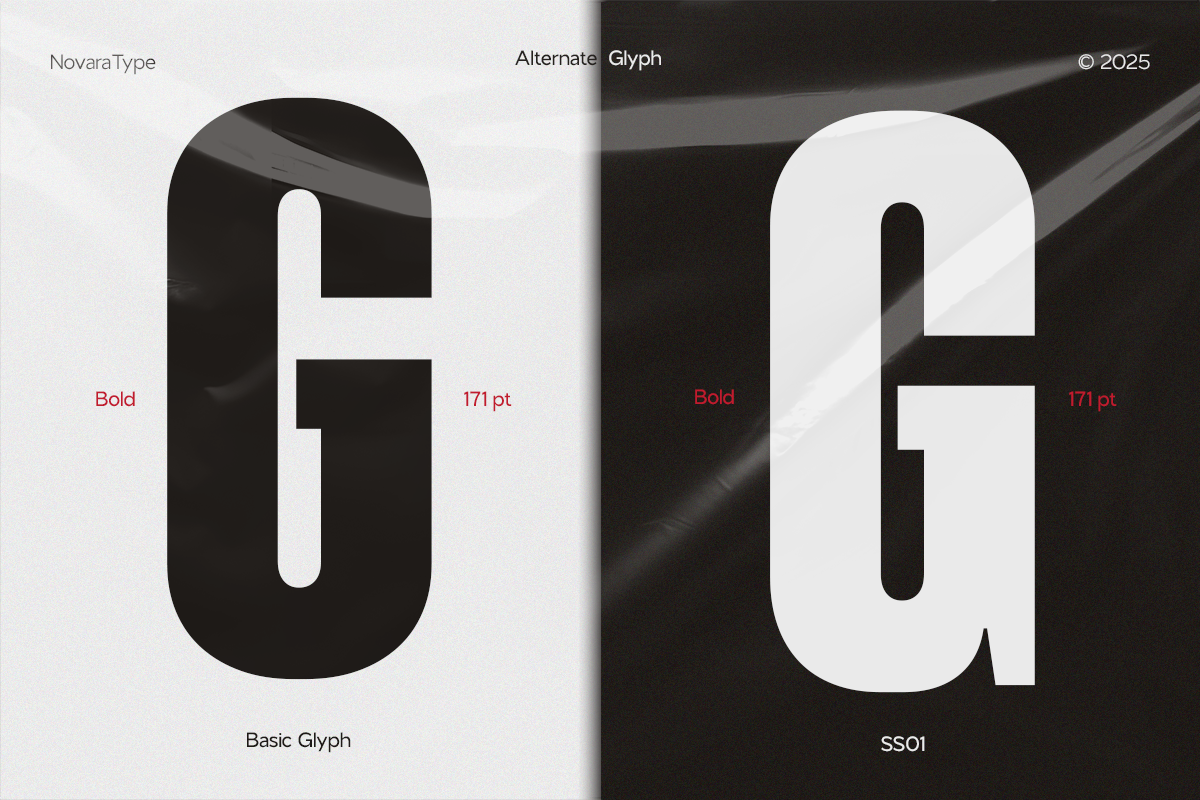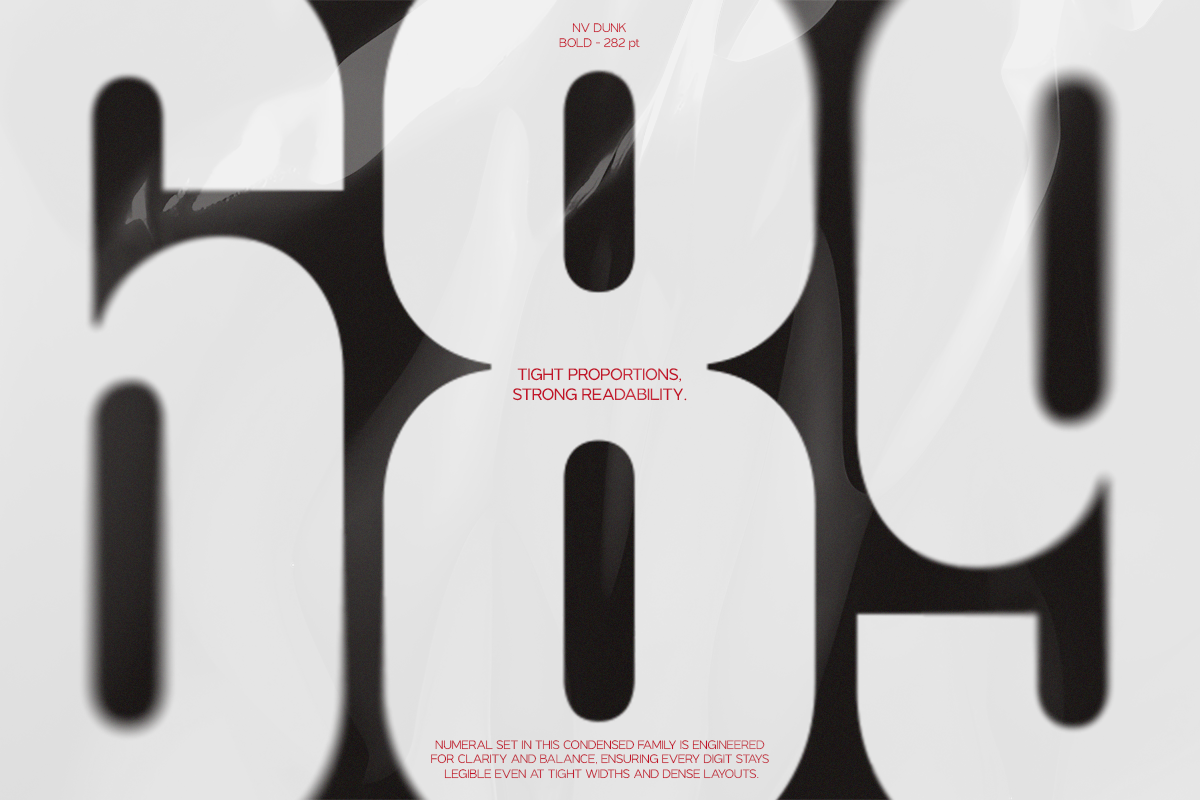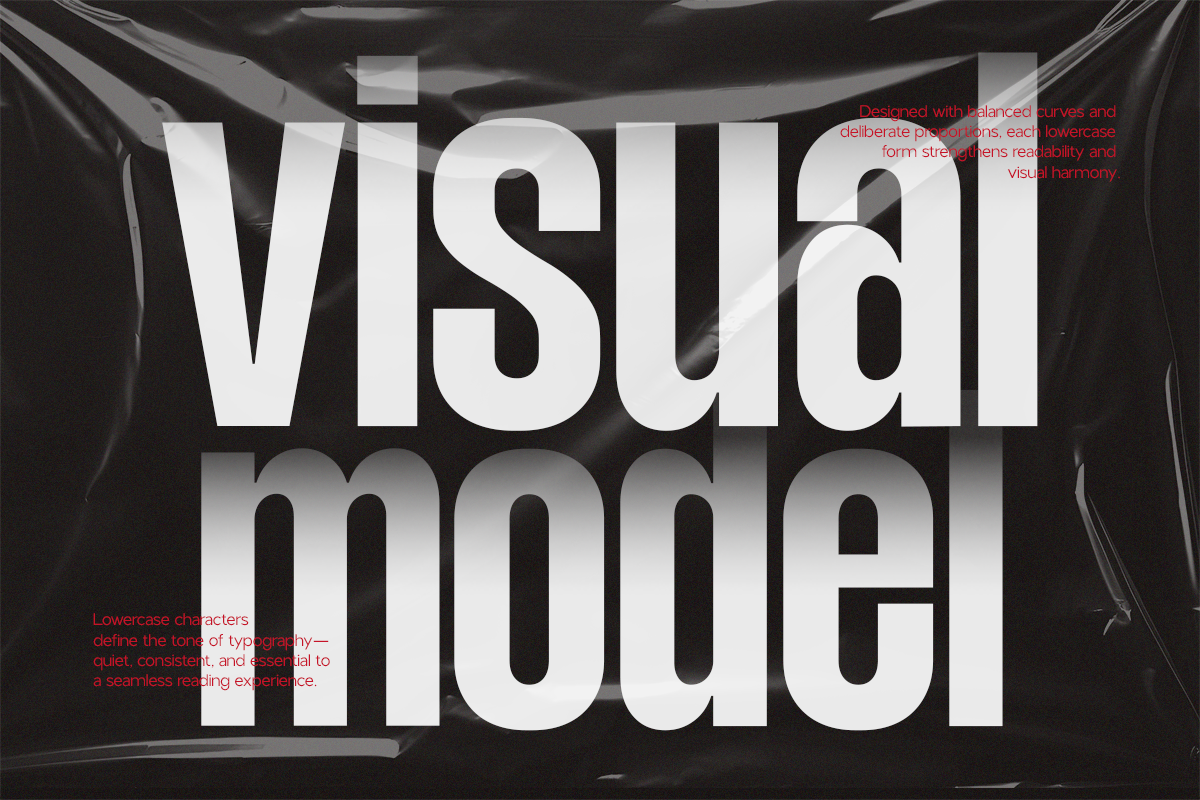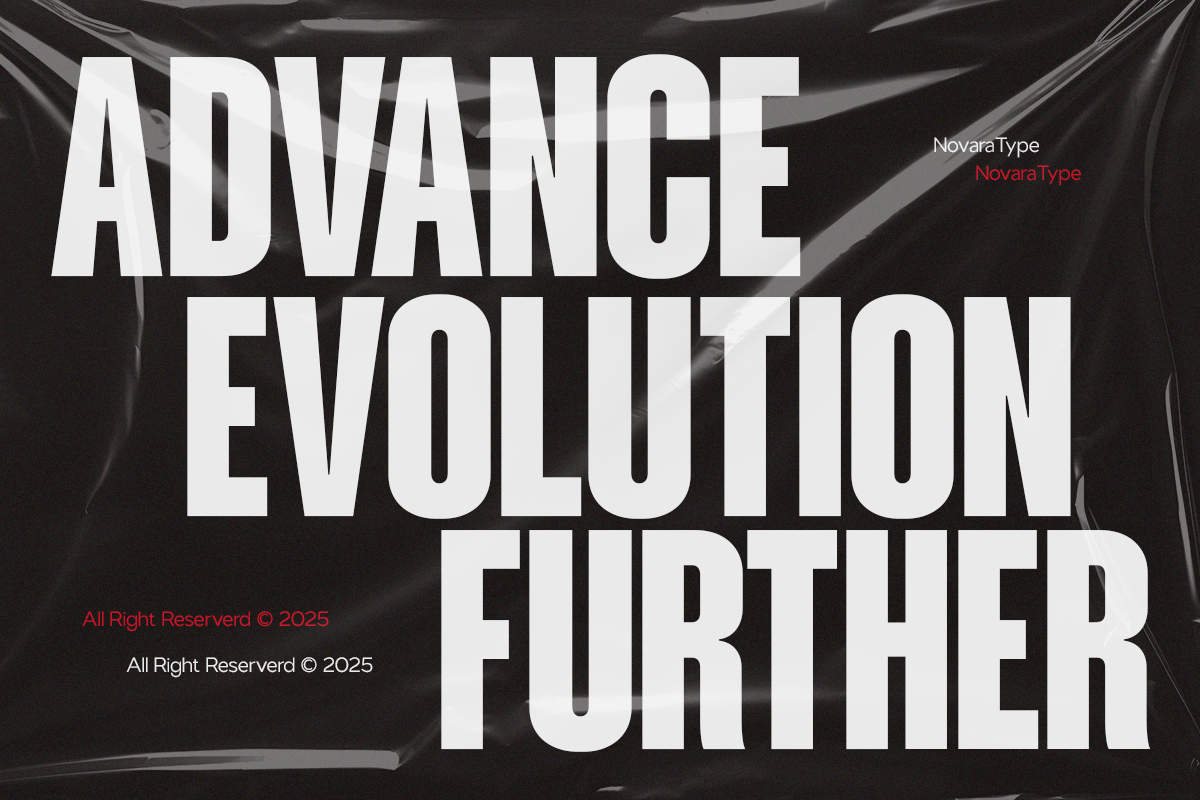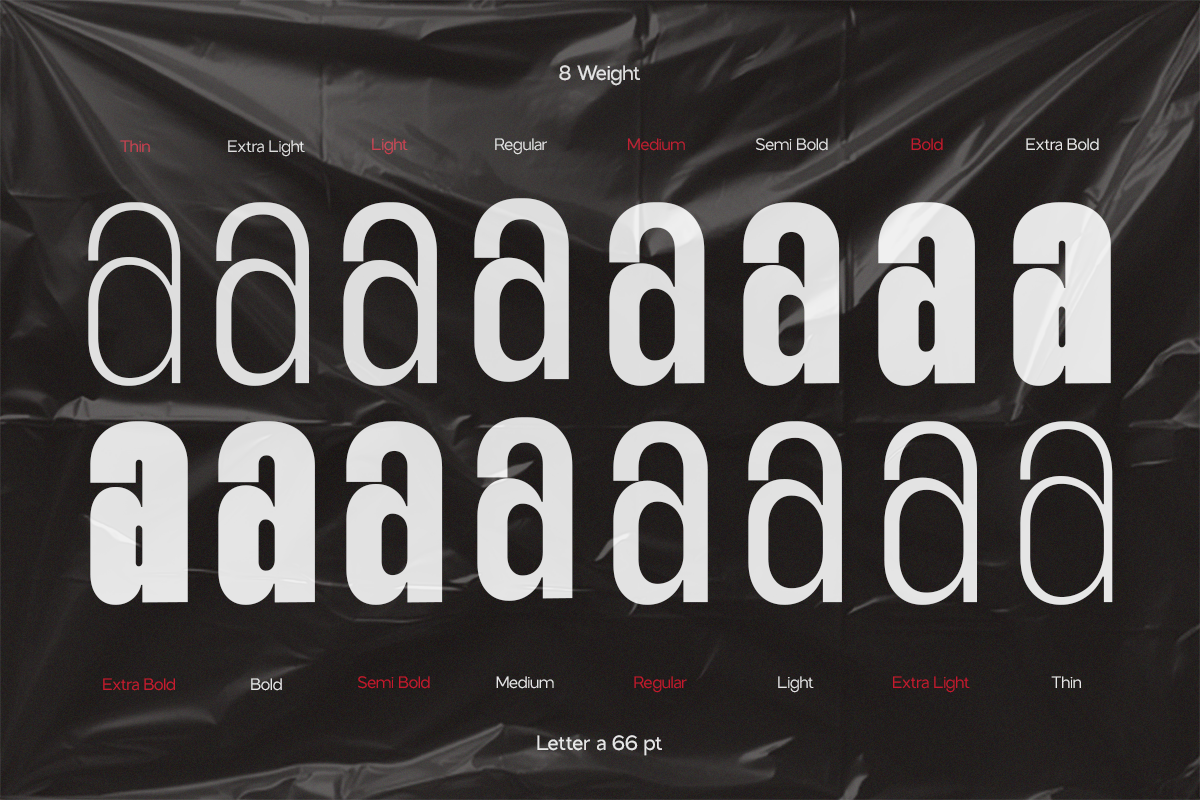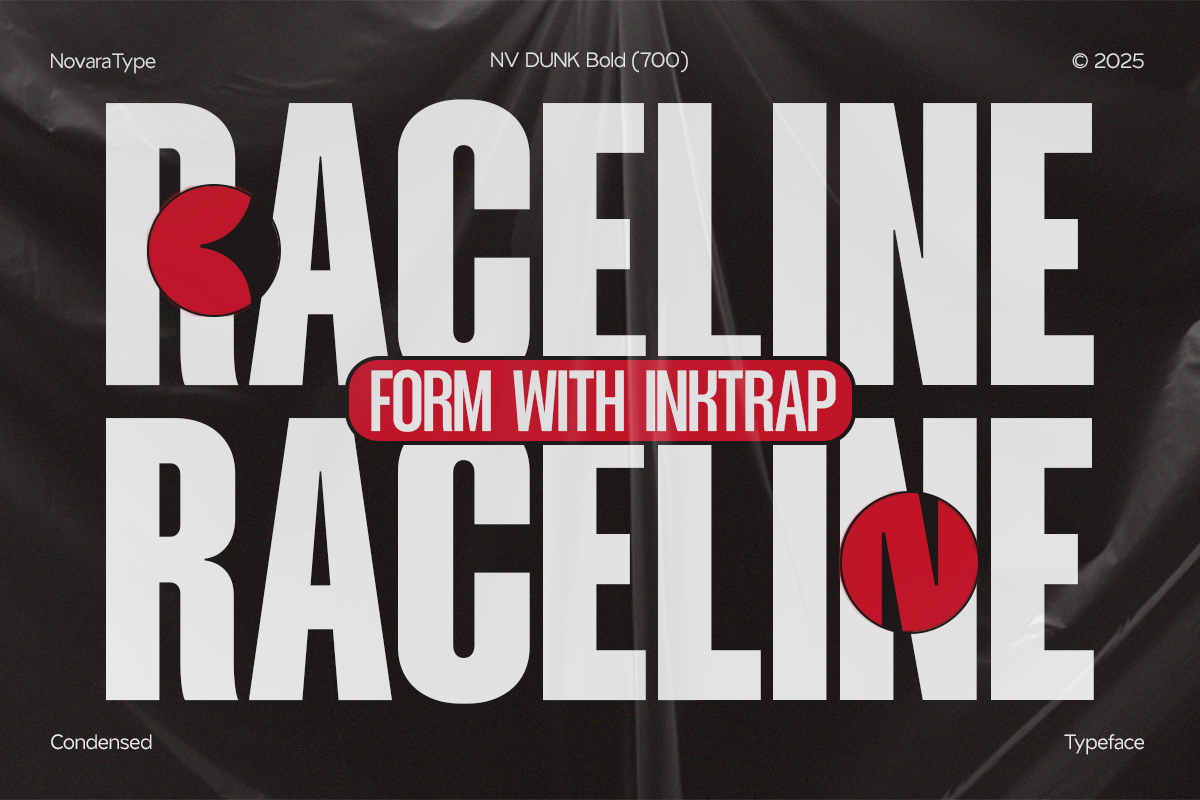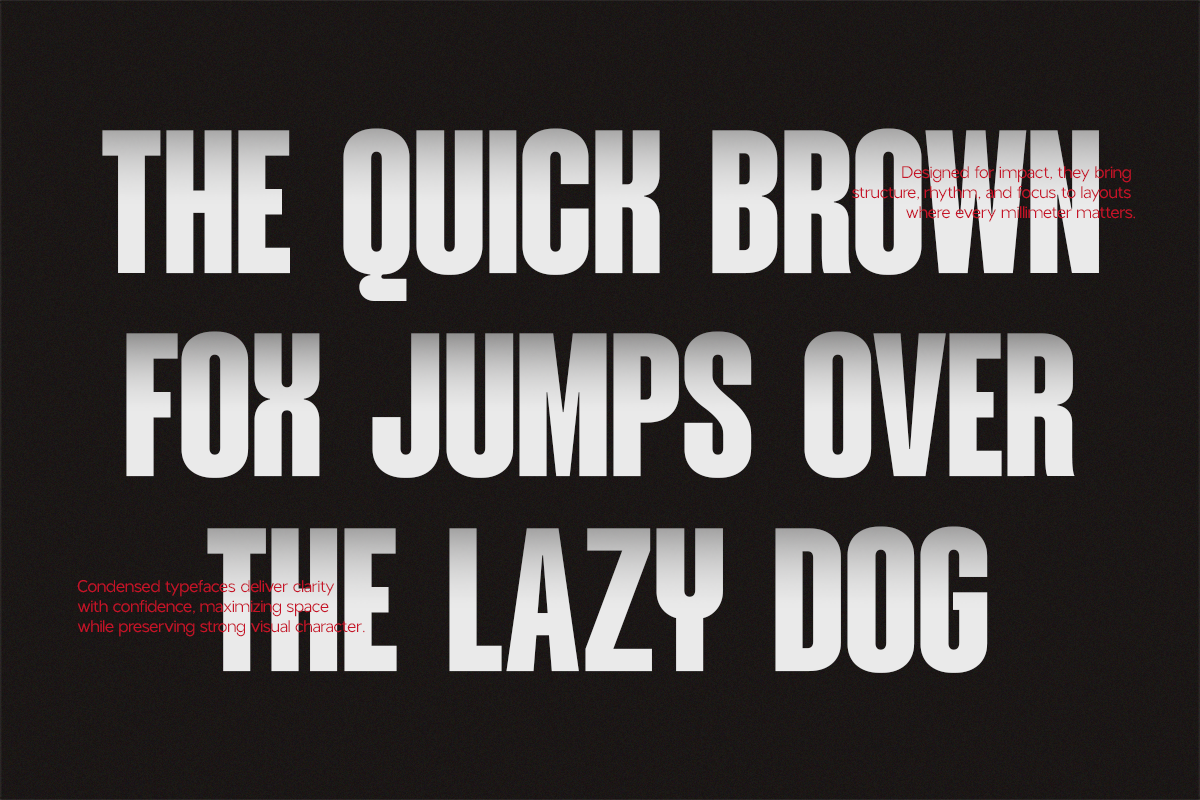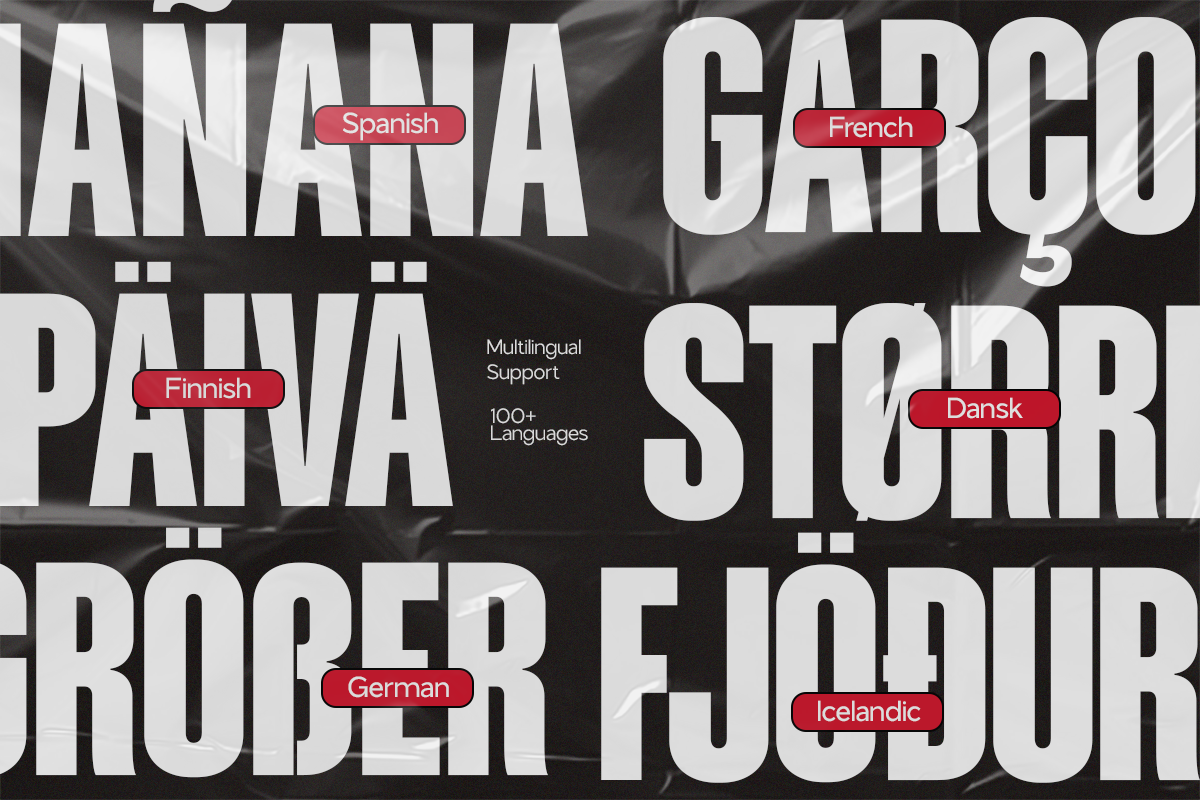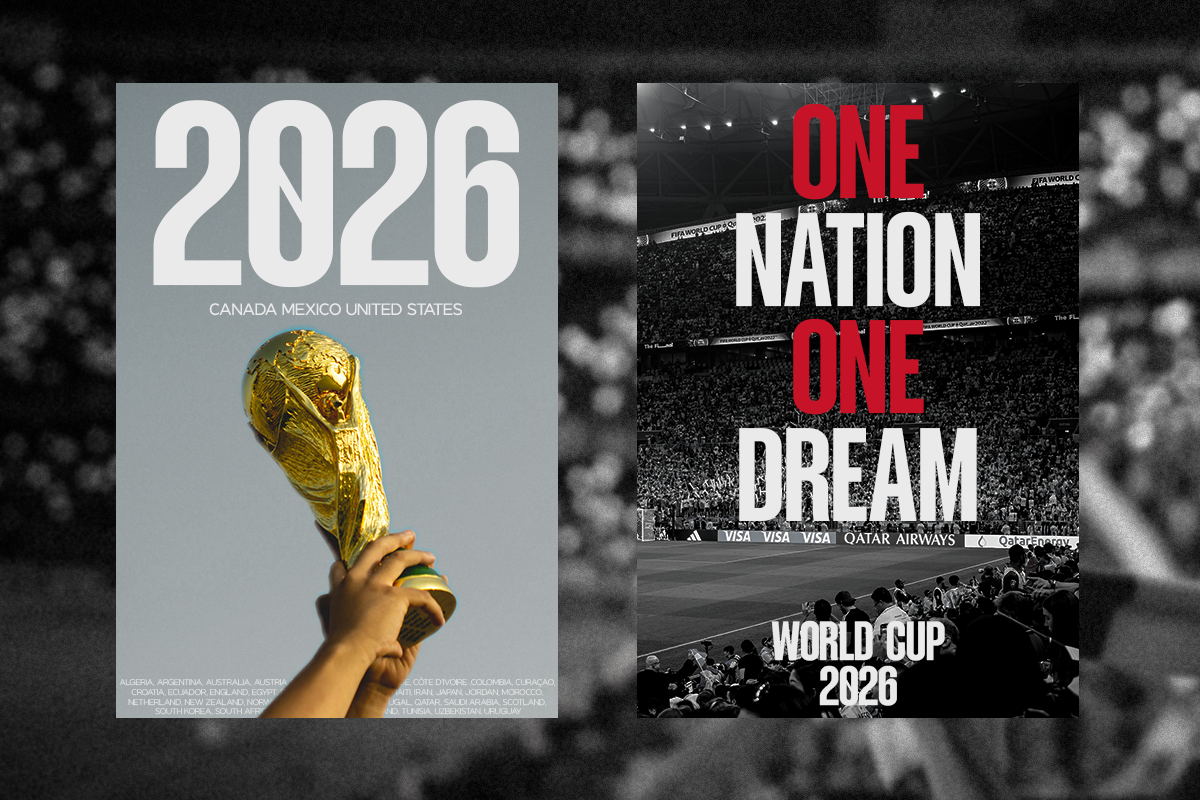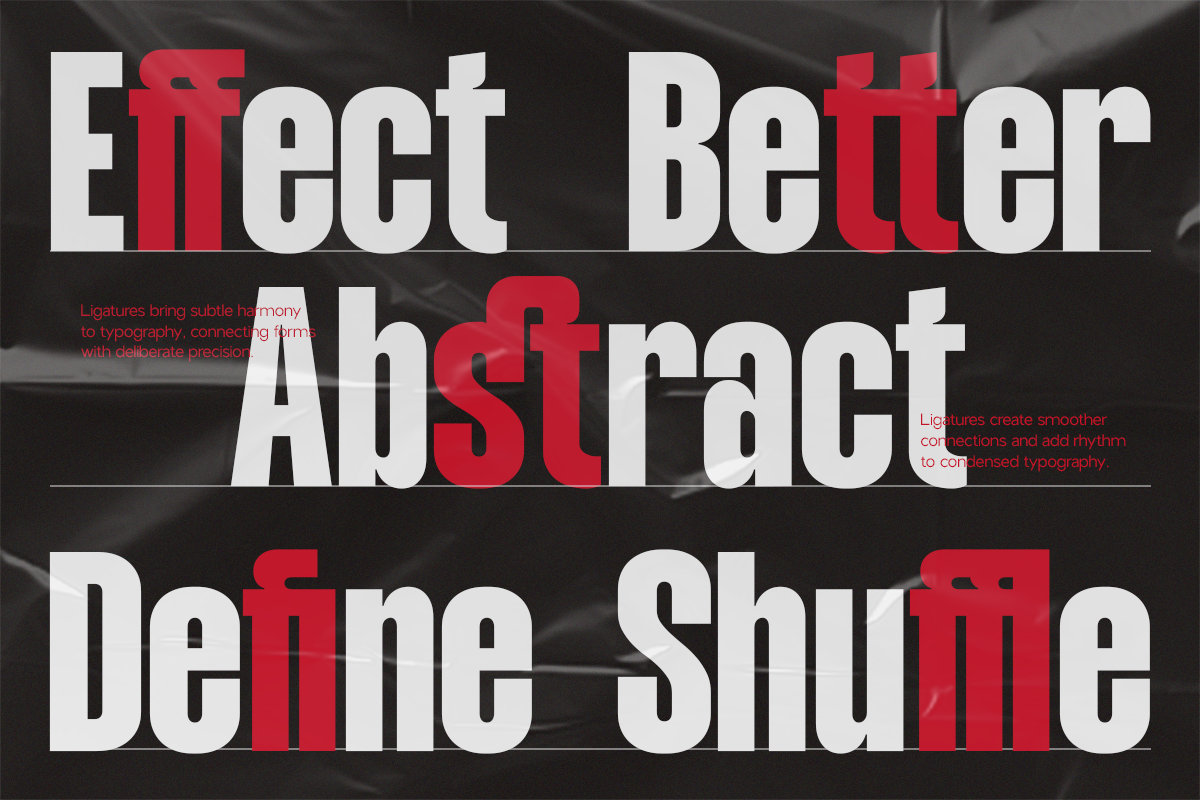
NV Dunk – Condensed Sans Serif
NV Dunk Condensed Family is a strong and modern condensed sans serif typeface designed to deliver impact, efficiency, and visual authority. Developed by NovaraType, NV Dunk features tight proportions and clean construction—making it ideal for headlines, branding systems, posters, editorial layouts, and space-conscious designs that demand attention.
NV Dunk is built to perform across various weights while maintaining a bold and consistent typographic voice. Its condensed structure allows you to maximize space without sacrificing readability or character. From striking headlines to structured editorial compositions, NV Dunk delivers a confident and contemporary typographic presence.
NV Dunk Condensed Family Includes:
Multiple Weights
Condensed Styles
Alternates & Ligatures
Accented Characters